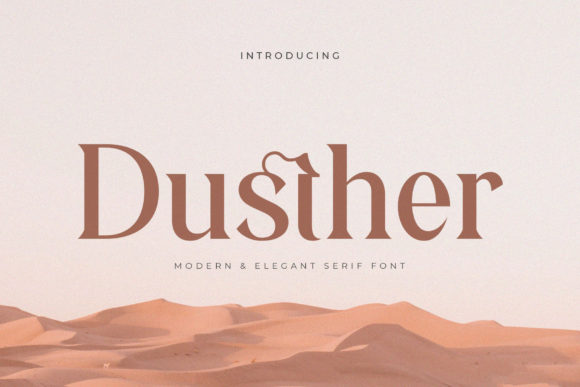
Embark on a typographic odyssey with the Dusther Font, a font family that captivates with elegance and a touch of modernity. Crafted by the skilled hands at BrandSemut, Dusther is a serif marvel, designed to elevate your design creations to new heights. This font family is more than just a collection of letters; it's an artistic masterpiece that transforms your words into visual poetry.
Unleash your creativity with Dusther, a font family that offers unparalleled versatility. Whether you're designing captivating headings, creating striking logos, establishing a bold brand identity, crafting sophisticated magazines, or adding a touch of elegance to product packaging and invitations, Dusther is your perfect companion. Its PUA encoding ensures effortless access to a world of glyphs and swashes, opening up endless possibilities for personalization.
Dusther's beauty lies in its ability to evoke emotions and create lasting impressions. Its graceful serifs and meticulously crafted characters exude a timeless charm that adds a touch of sophistication to any design. Experience the allure of timeless elegance with Dusther, a font family that captures the essence of classic typography while embracing the spirit of contemporary design. Elevate your creative projects and captivate your audience with the enchanting Dusther Font.